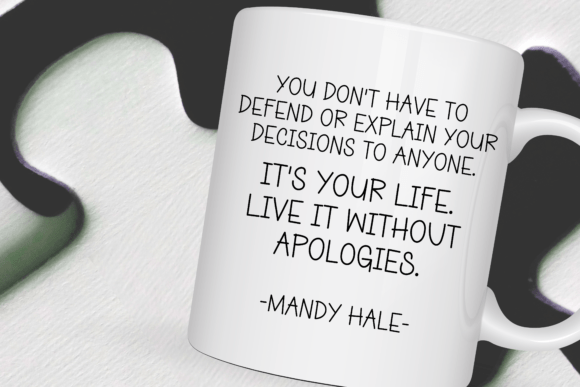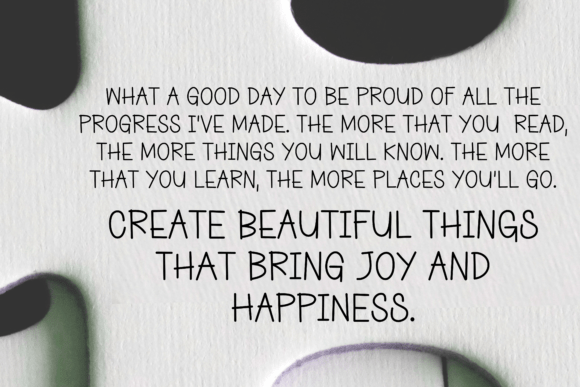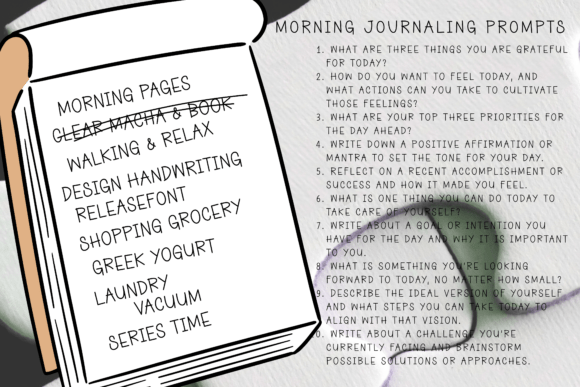
Introduction to Merge Font
Have you ever found yourself sitting at your desk, surrounded by scribbled notes and scattered design ideas, desperately searching for the perfect font to bring your creative project to life? I know I have. As designers, we’re constantly on the lookout for that special something to make our designs stand out, and that’s exactly what the Merge Font delivers.
With its quirky and friendly handwritten sans-serif style, the Merge Font is the perfect addition to any design project that needs a touch of whimsy and personality. Whether you’re designing t-shirts, coffee mugs, or digital notes, this font is sure to add a cute and playful touch that will leave your audience smiling.
Key Features of Merge Font
- Supports a wide range of languages and character sets, making it a versatile design element
Honest Review: Merge Font
As a designer, I’m always on the lookout for high-quality design resources to elevate my creative projects. Recently, I stumbled upon Merge Font, and I’m excited to share my honest review with you.
What works well: ✨ Merge Font has a sleek and modern design aesthetic that lends itself perfectly to a variety of creative projects. The font is incredibly versatile, making it easy to use for both digital and print applications. Additionally, the transparent background feature is a game-changer, allowing for seamless integration with other design elements.
However, there are a few limitations: ⚠️ The font selection is relatively limited, and I found that some of the characters were not as smooth as I would have liked. Additionally, the font is not as customizable as I would have liked, which may be a drawback for some designers.
Overall, I’m impressed with Merge Font’s potential. While it’s not without its limitations, it’s a solid addition to any designer’s toolkit. If you’re looking for a high-quality font to elevate your creative project, Merge Font is definitely worth checking out.